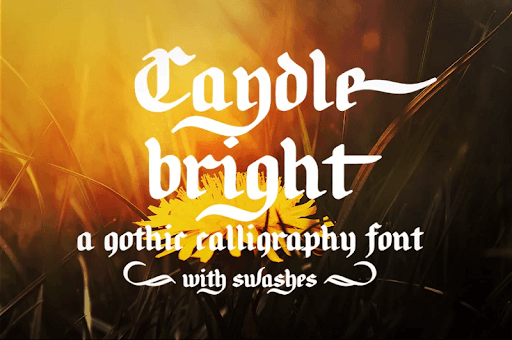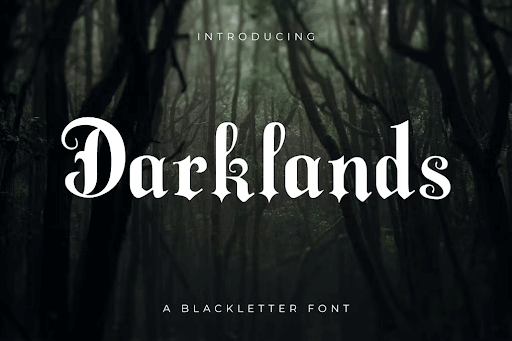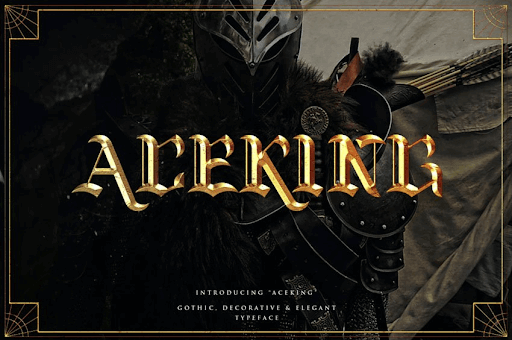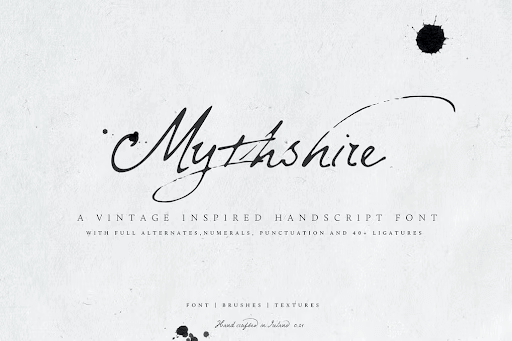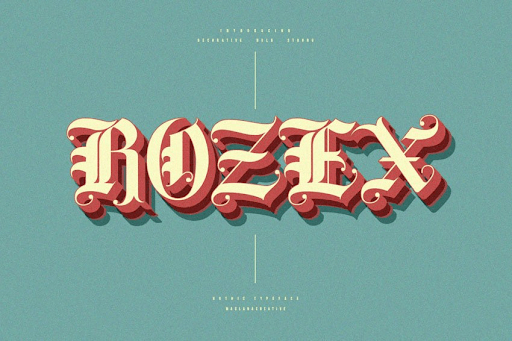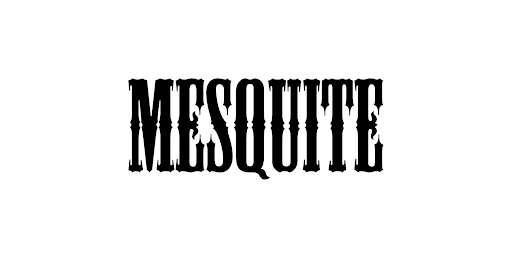
Best Vintage Fonts by Historical Era
There are many terrific ones, but what is a good vintage font for your brand design? If you’re overwhelmed by the number of options, start by choosing the historical era and browse through some of the best vintage fonts we have selected!
What is a vintage font? These days, it can be challenging to say. On one hand, some fonts have been consistently used for decades, and we forget their origins, sometimes dating back to the beginning of the 20th century or even much further back. On the other hand, skilled graphic designers are constantly finding new ways to reinvent old fonts and give them a modern twist.
Whether you want something totally authentic or a font reminiscent of old styles, here are 20 glorious options to consider. To make things easier, we’ve categorized these vintage fonts according to the historical era they belong to.
Antique fonts
Probably the most famous font from this group is Papyrus. Unfortunately, this font has gotten a bit of a bad rep due to unsuitable uses, including the now-notorious Avatar movie logo.
However, these fonts inspired by ancient civilizations (Greek, Roman, and Egyptian, mostly) can be a terrific choice for businesses such as spas, beauty salons, or museums. Basically, anywhere where the nod to these ancient times makes sense.
Let’s look at some options.
1. Forum (free)
This font is a wonderful option to consider if you want something that exudes tradition and professionalism. The elegant letters mimic ancient Roman typography. The writing is legible and suitable for a number of uses and industries, but primarily legal, health and accounting.
2. Cretheus($14)
For a more artsy feel, consider this gorgeous font. As you can see from the example below, it looks terrific on busy backgrounds, so you can use it on banners, posters, and colorful printed materials.
3. Requiem (free)
It’s slightly less versatile than the previous two examples. Still, if you want to emulate that ancient feel, this font won’t disappoint you.
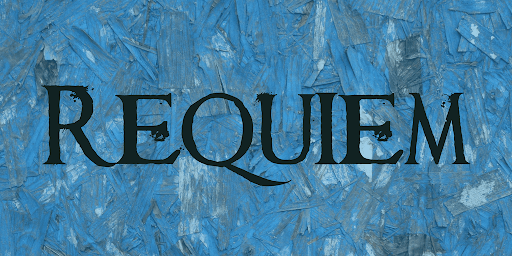
4. Celtic Hand (free)
Let’s move on from Greco-Roman styles to explore this stunning typeface inspired by Celtic typography. It’s cool and fun without being overly cartoonish, and I think it would be a terrific fit for a cool beer logo.
5. Paleo (free)
And how about something even more creative? If you want to travel back to the past, you probably can’t go further than this font. It’s inspired by ancient cave inscriptions. Surprisingly, due to the minimalist design, it has a refreshingly modern look that would suit trendy businesses. It’s a rare find, and best of all: you can get it for free!
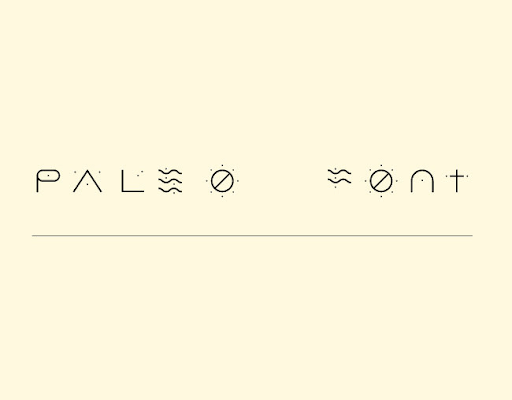
6. Ancient Geometry ($16)
What is a good vintage font for a logo? I’d say we have a winner right here! The totally unique lettering on this one will ensure you have a creative logo design, even with very few alterations.
Blackletter & calligraphy fonts
Blackletter (also called Gothic or Old English) typefaces are inspired by Medieval calligraphy. They are dark, usually with thick lines, and have a compelling old-timey look. However, used in contemporary designs, they can contribute to a powerful contrast and eye-catching visuals.
7. Olde English (free)
These letters remind me of the opening credits to Disney’s Robin Hood and Sleeping Beauty. You might think this kind of typography firmly set in a particular historical era has few uses. For example, museums, historical publications, or medieval theme parks.
However, remember that many metal bands have used this typography, and it’s pretty common to see it on a plain black t-shirt. Contrast creates memorable design!
8. Alte Schwabacher (free)
Similar to the previous example, this is more German-style. Other ideas on how to use these free vintage fonts differently are on all sorts of merch, website banners, and even coffee shop branding. Remember to pair the letters with minimal design elements to convey the message.
9. Glaive ($16)
Yet another delightful option marries a distinctly vintage feel with a more modern flair. The letters aren’t overly ornamented, which helps with legibility. But you still get that badass gothic look if that’s something you fancy.
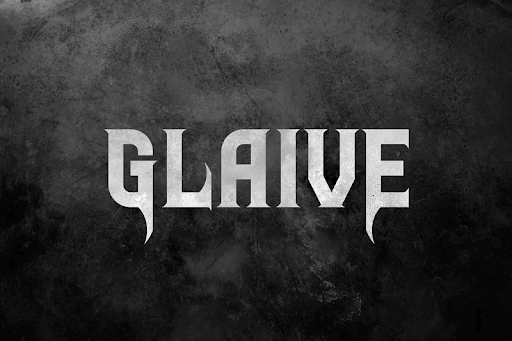
10. Bajern (from $5)
Speaking of more modern takes, here’s yet another excellent contender. The designer behind this one was inspired by old blackletter styles but made this font geometric and more contemporary. The clean look and excellent readability make it a font with vast use.